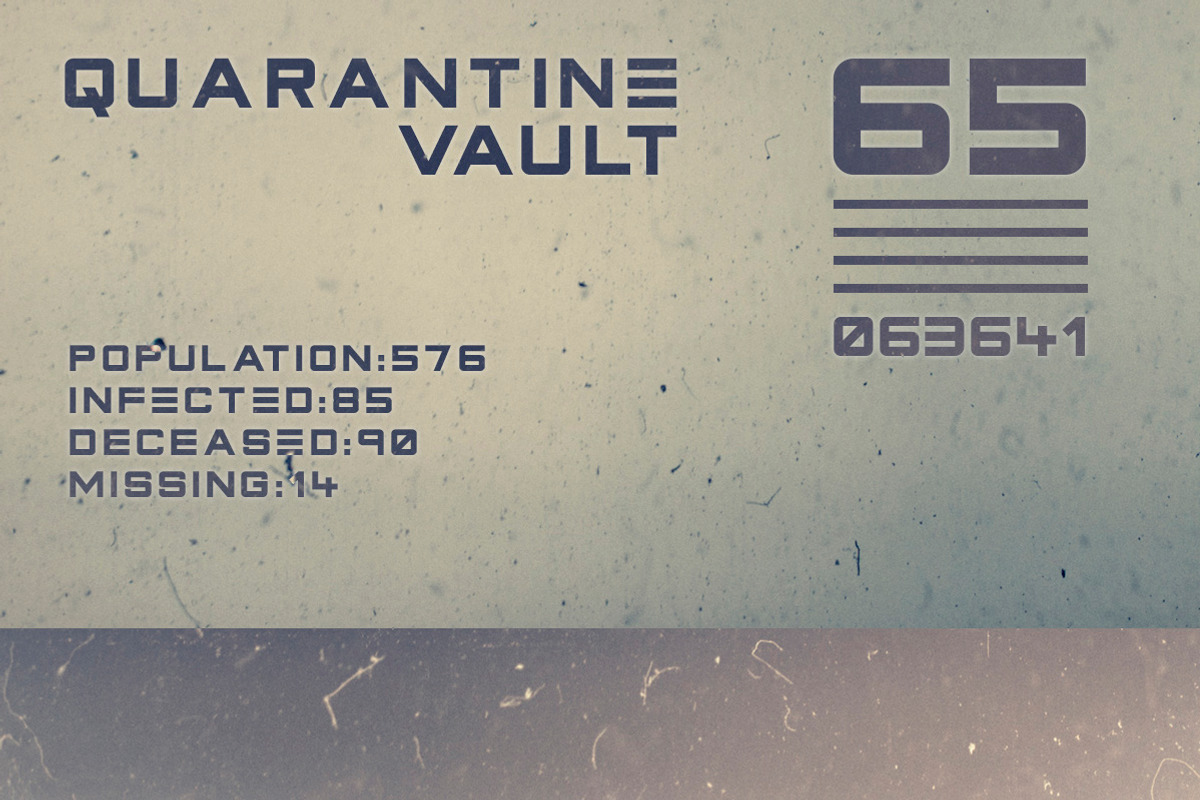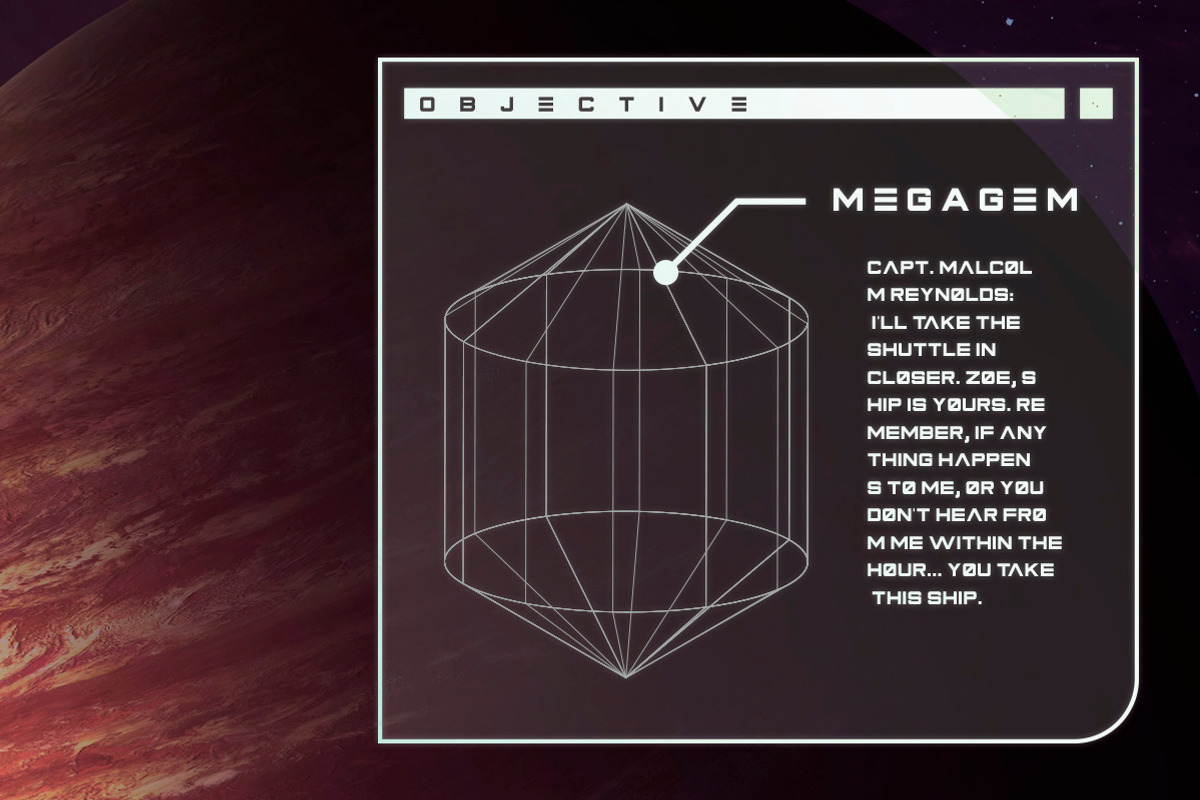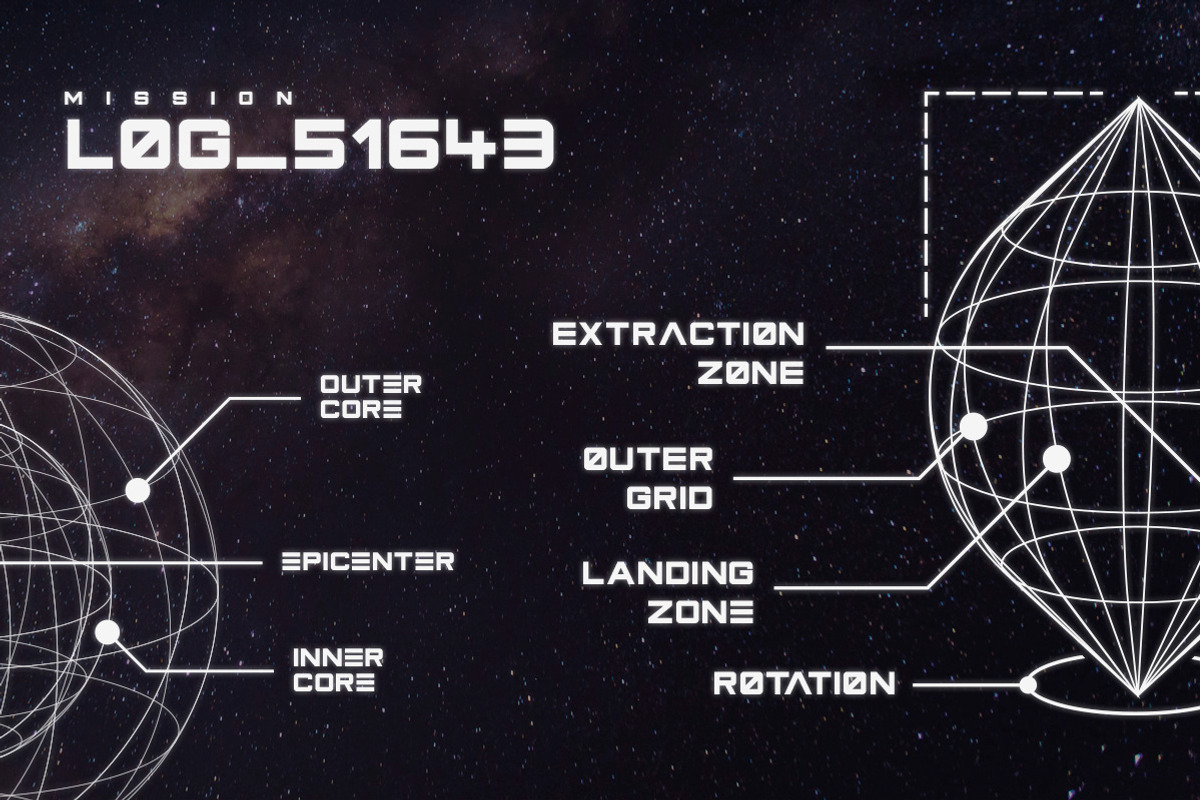
Primal - Futuristic Font
Primal - Futuristic Font by Tugcu Design Co. is a font selected for branding, posters, packaging, typography.
- It includes Uppercase multilingual letters, alternate letters, numbers and punctuation.
Why Primal - Futuristic Font is worth a look
Primal - Futuristic Font by Tugcu Design Co. fits naturally into Branding, posters, packaging, typography.